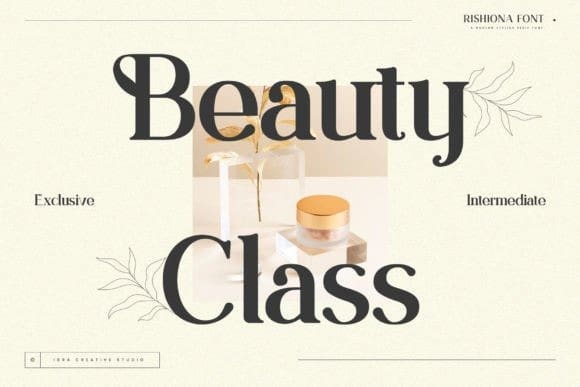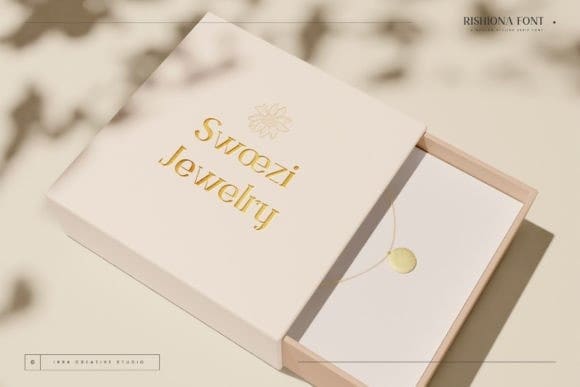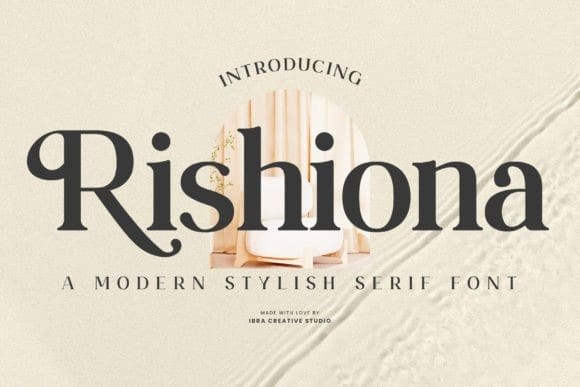
Rishiona Font
Rishiona Font, a contemporary and stylish serif font, captivates with its seamless fusion of modern aesthetics and timeless elegance. Each meticulously crafted letterform exudes sophistication, boasting clean lines and balanced proportions that effortlessly navigate the intersection of tradition and innovation. The serifs, with their subtle yet distinctive details, add a touch of refinement, elevating Rishiona to a font that is not just functional but an artful expression of sophistication.